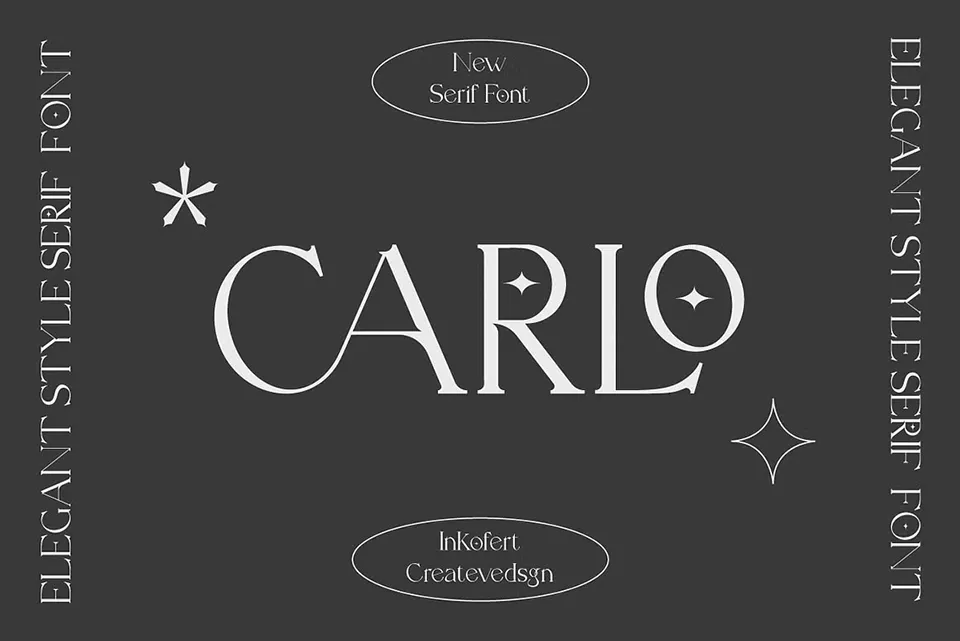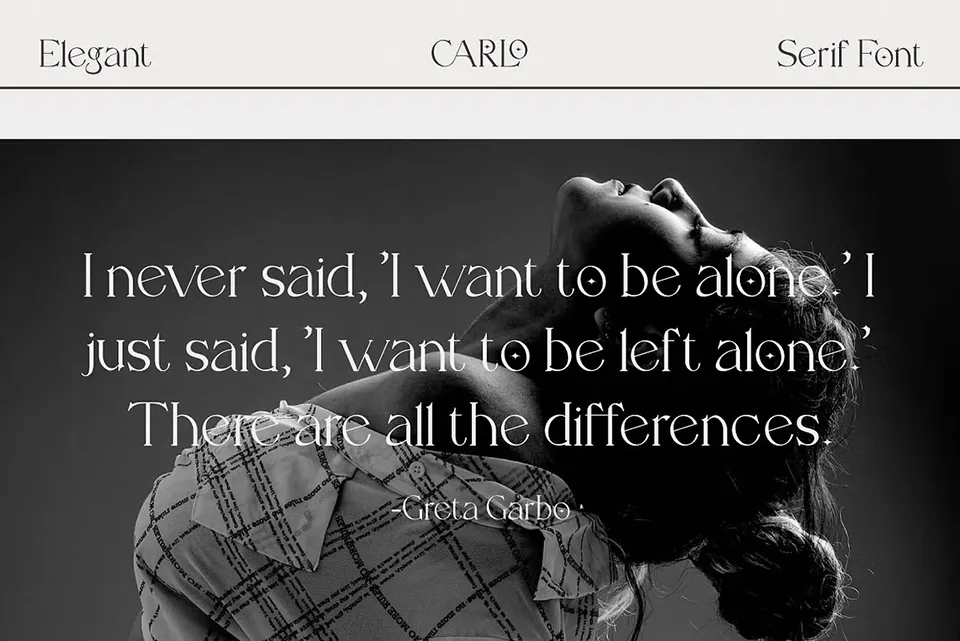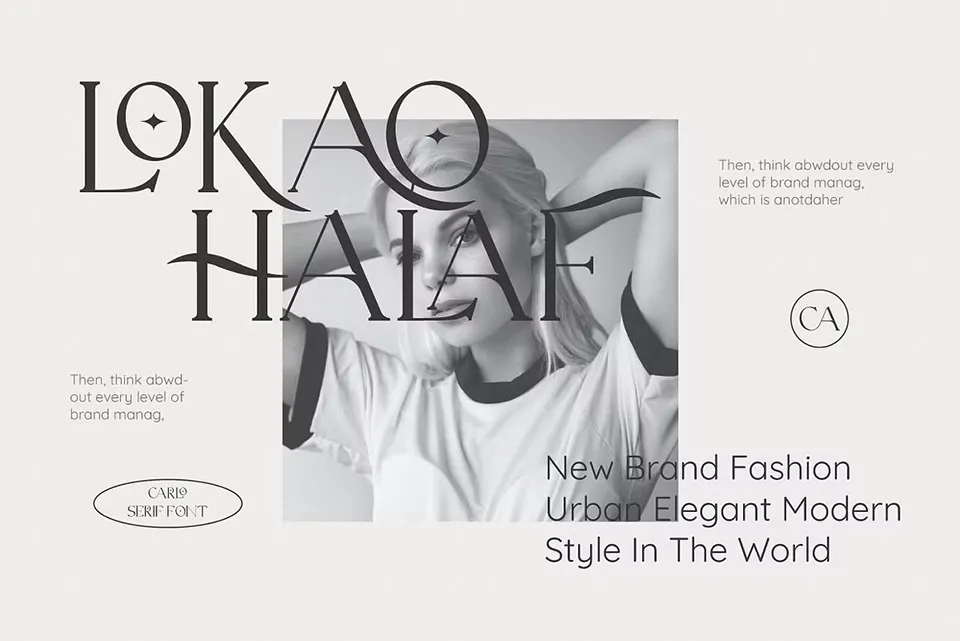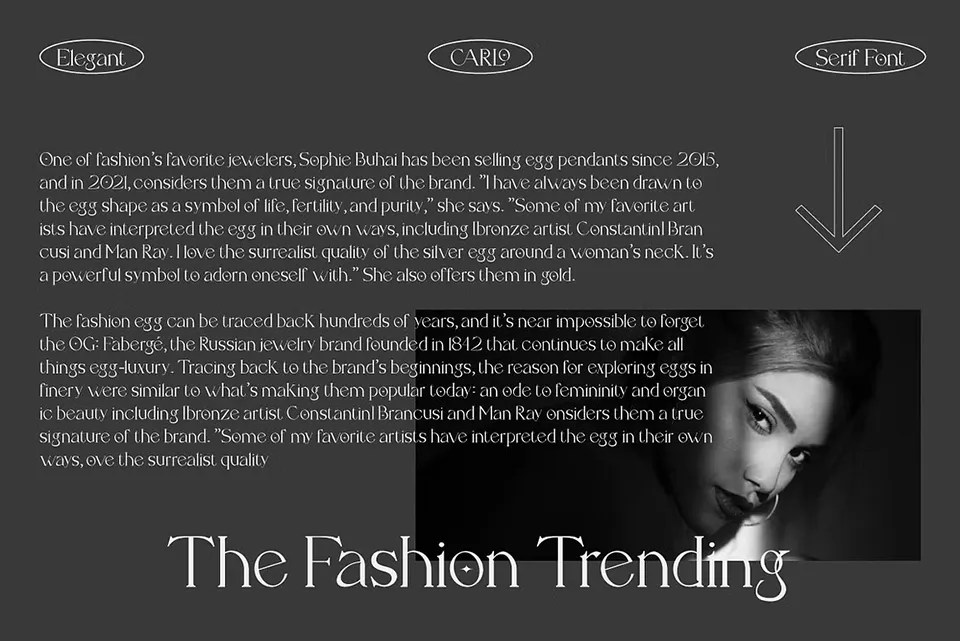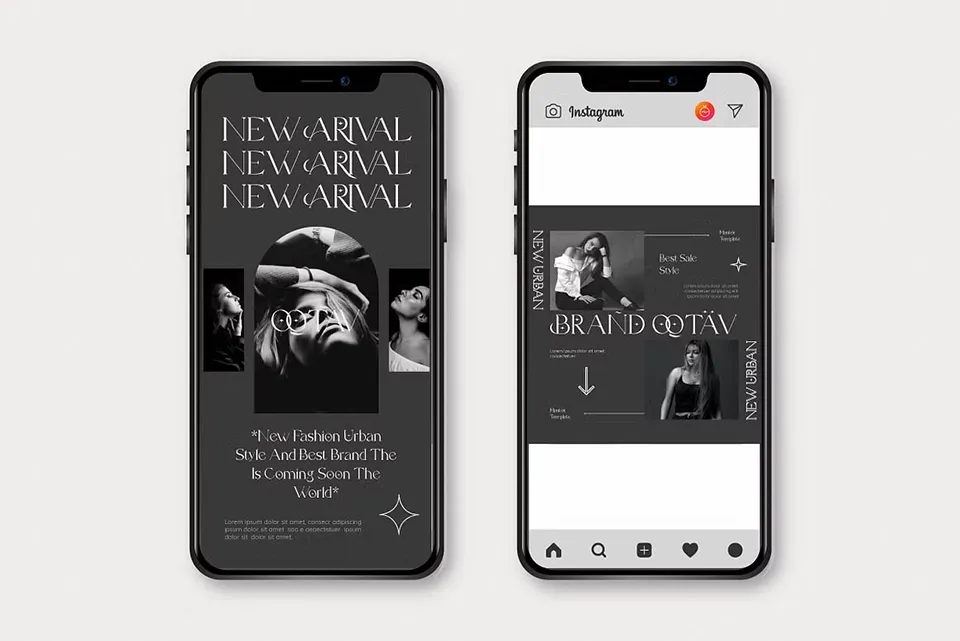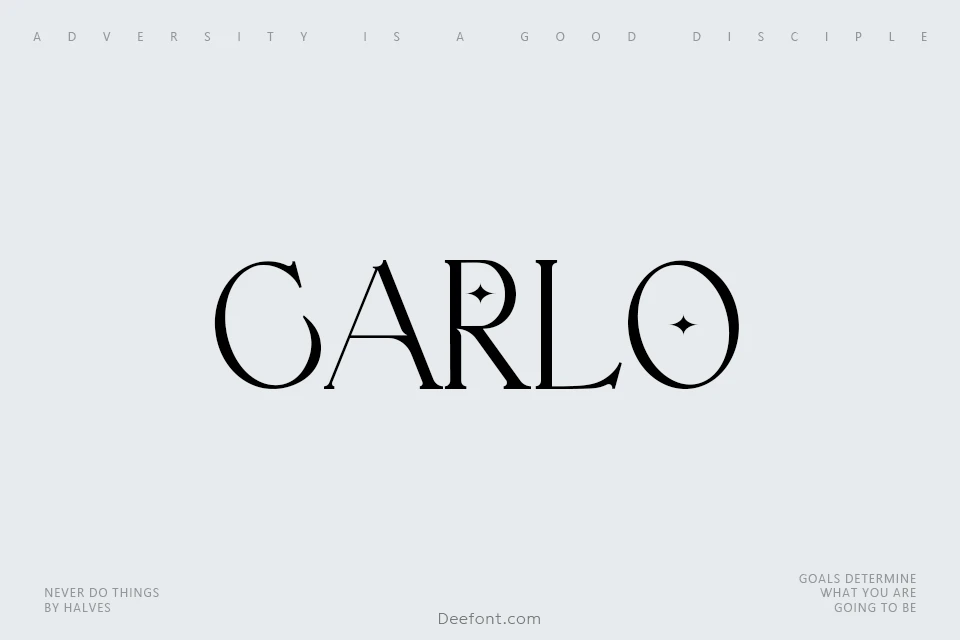
Carlo Font
Carlo Font is an elegant serif typeface that blends timeless sophistication with modern design elements. Its refined letterforms and stylish details make it ideal for branding, editorial layouts, invitations, and other creative projects that require a touch of class.